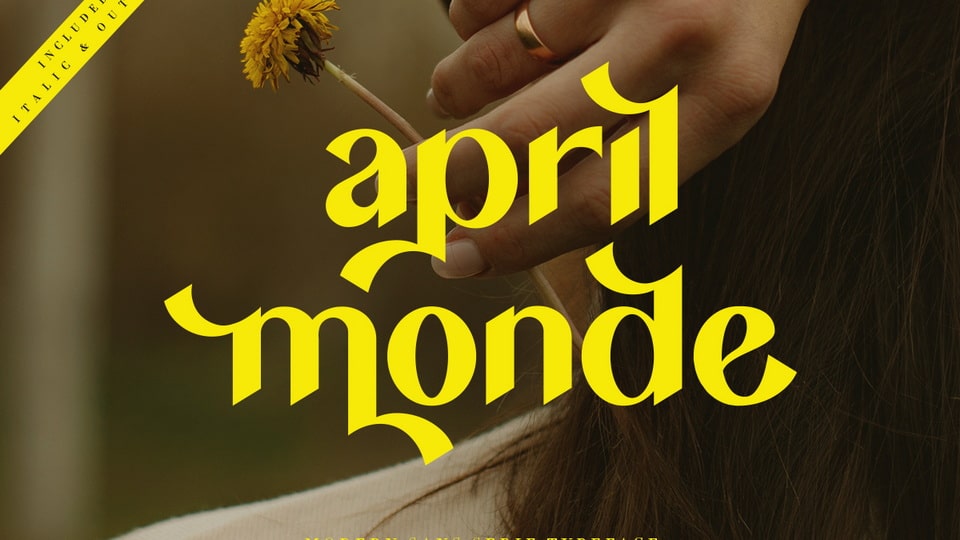
Download April Monde font, a modern sans serif typeface, with regular, italic and outline style. The elegant modern font creates a unique design and is sure to steal the eye of the design target audience.
Designer: Saystudio